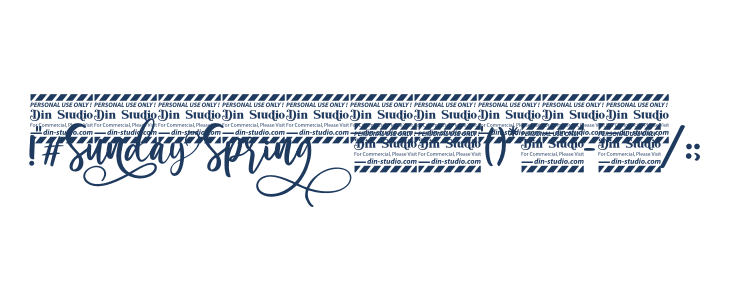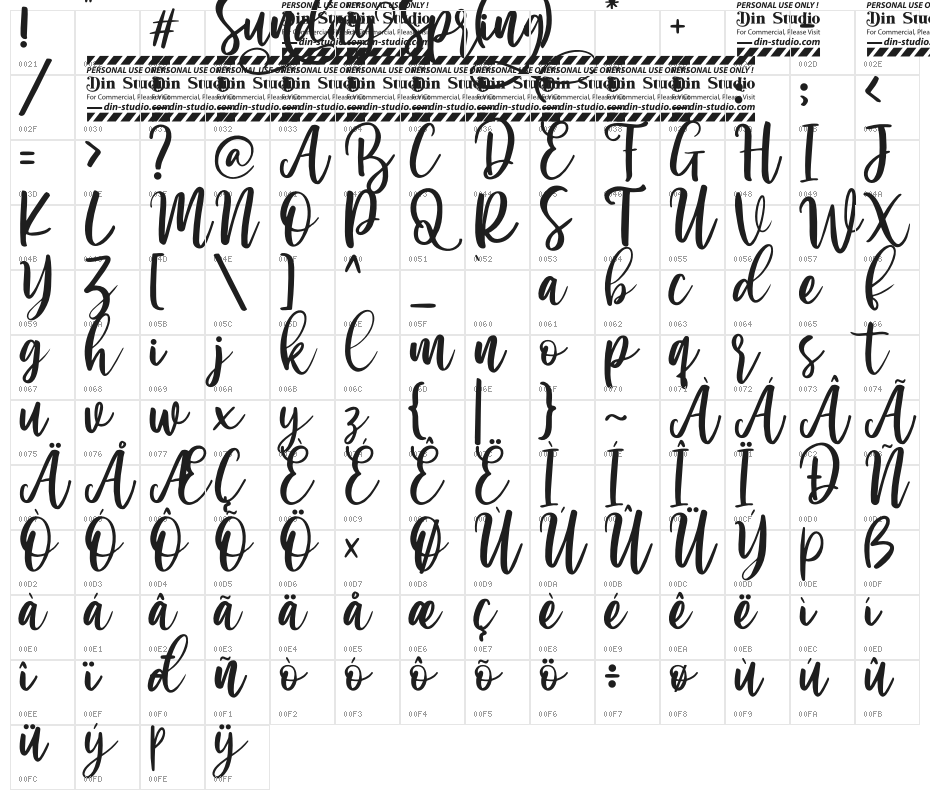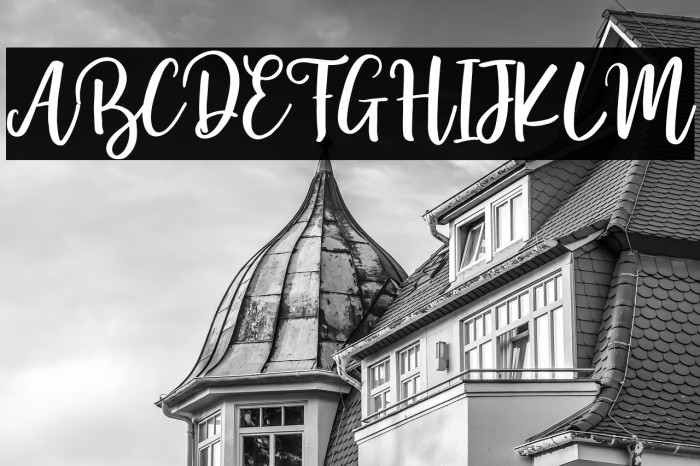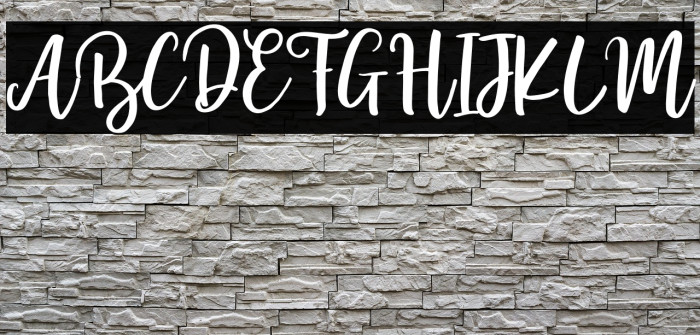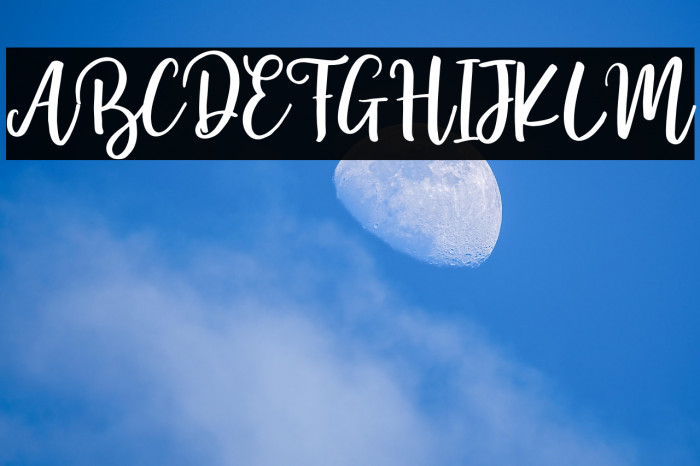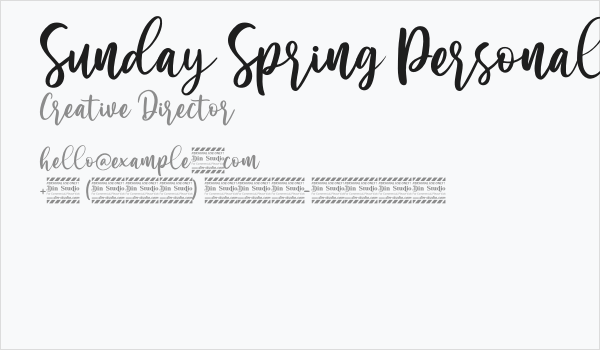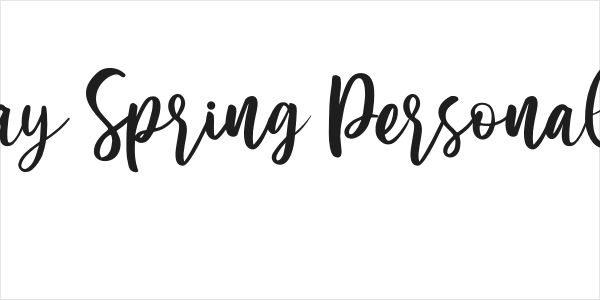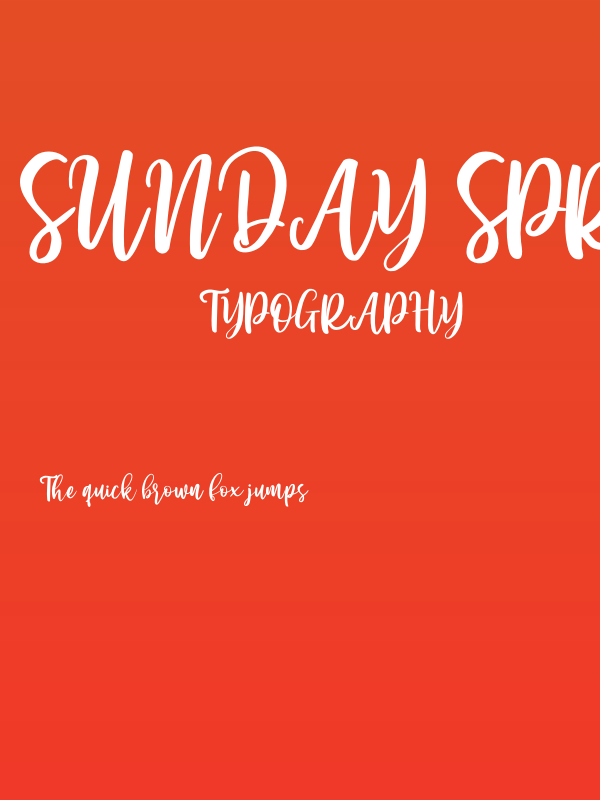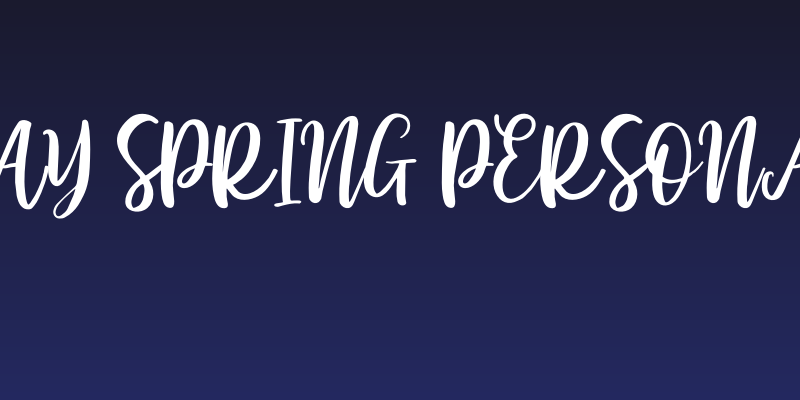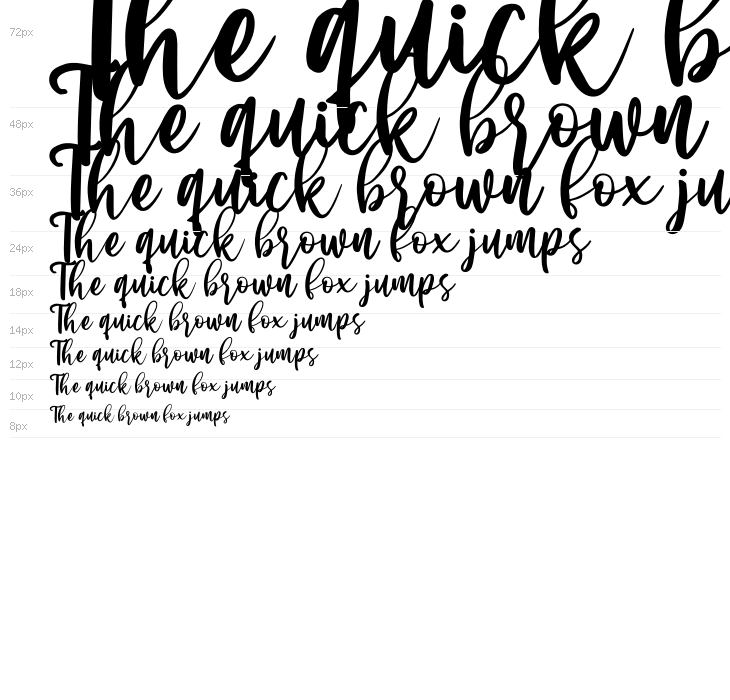
Sunday Spring Personal Use Font
Sunday Spring Personal Use Description
This font features a lively and expressive script style with a handwritten appearance. The letters are characterized by their fluid, cursive strokes and varying thickness, giving it a dynamic and playful look. The uppercase letters are bold and prominent, while the lowercase letters maintain a consistent flow, enhancing readability. The font includes a full set of uppercase and lowercase letters, numbers, and a selection of special characters. Its design is both elegant and casual, making it suitable for a variety of creative projects.
| Use Case | Logos, Headlines, Invitations |
| Proposed Projects | Ideal for wedding invitations, greeting cards, branding, and social media graphics. |